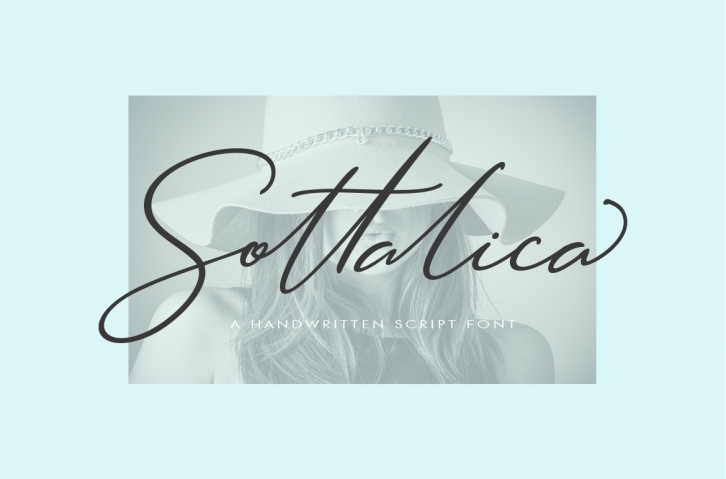
Sottalica is a beautiful font that was designed by mightype. It's a great choice for designers and creatives who need such a font. It was released on February 12, 2019 and the file size is 3.32 MB. Sottalica may give a more youthful, expressive and casual look to your project. It is a very beautiful, refined, elegant, and high-quality font.